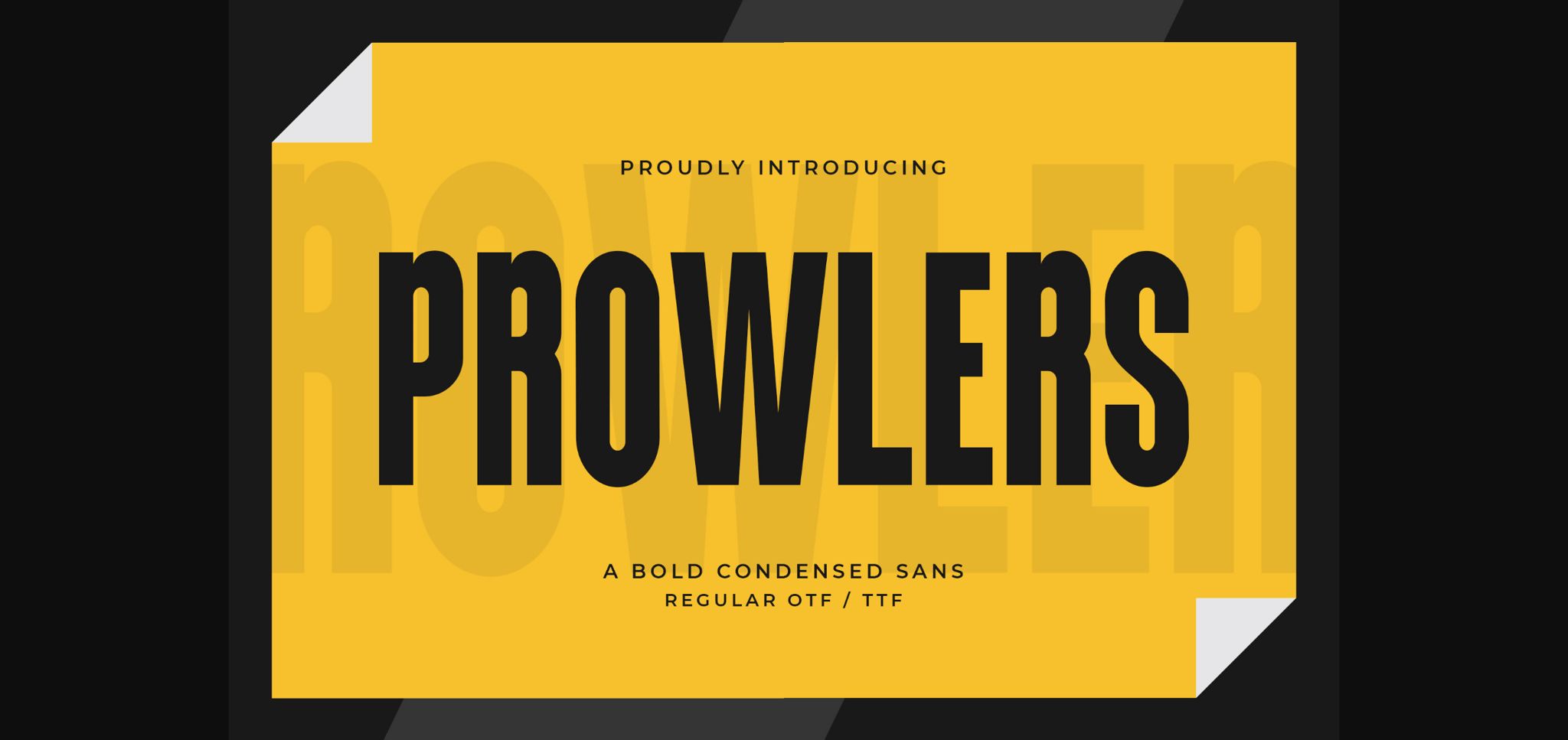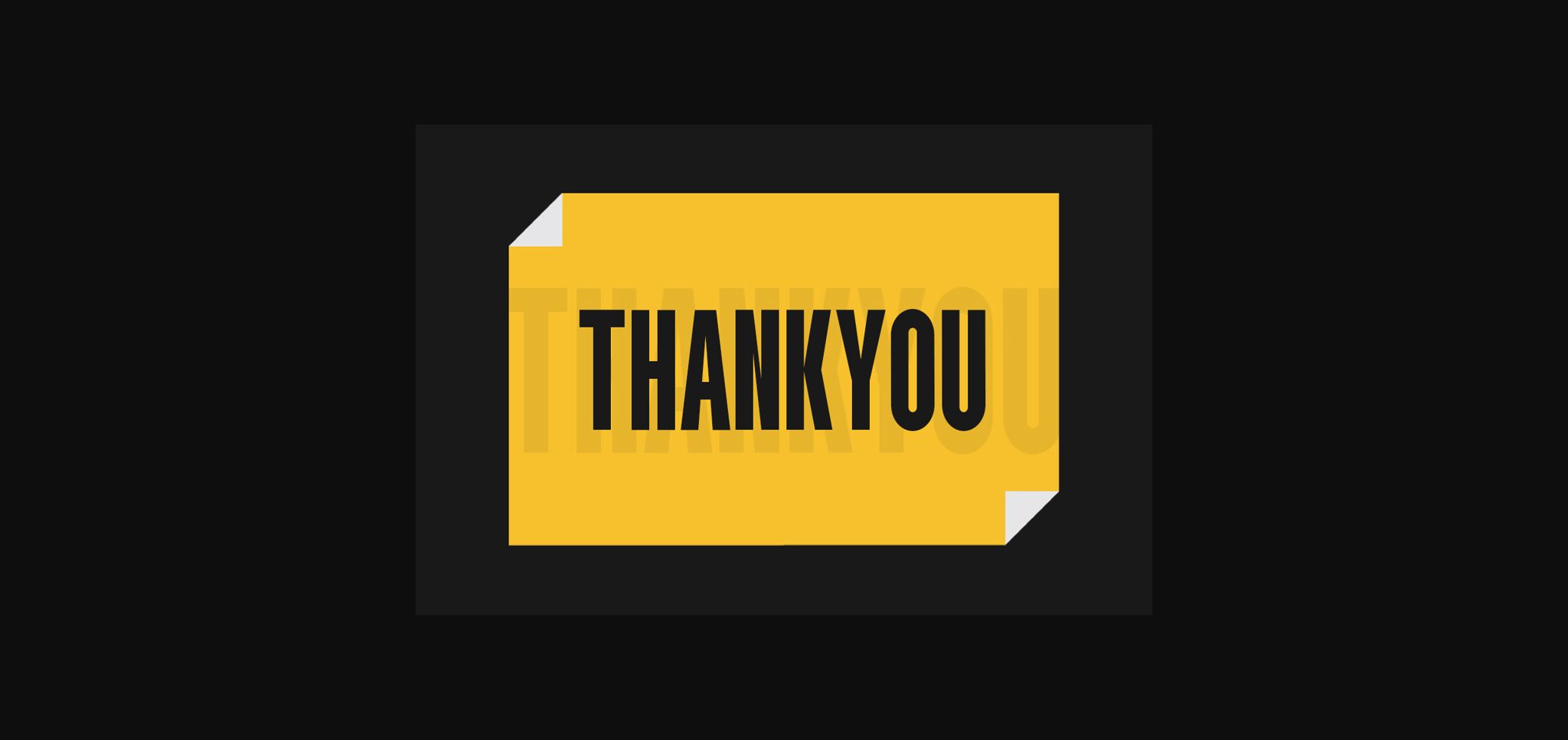
About Prowlers Font
Introducing “Prowlers” – a bold condensed sans font that prowls through your designs with strength and impact! With its commanding and compact letterforms, “Prowlers” leaves a lasting impression in any project. Each character is meticulously crafted to showcase boldness and versatility, making it perfect for attention-grabbing headlines, striking logos, modern posters, and more.